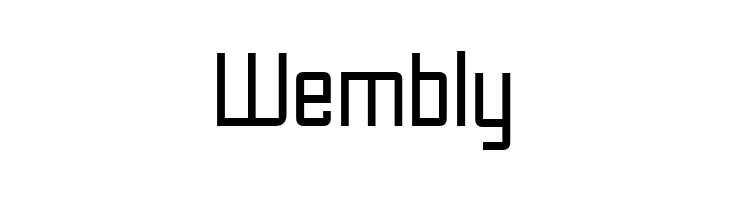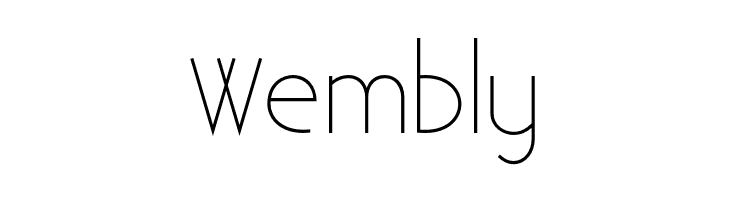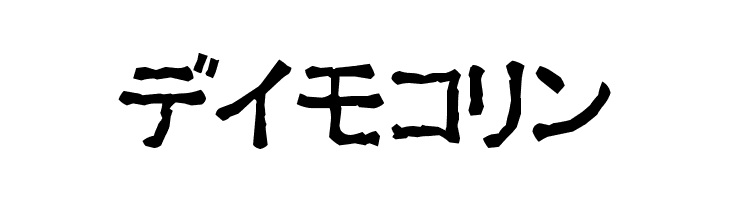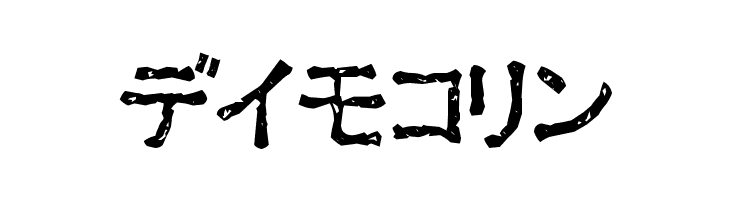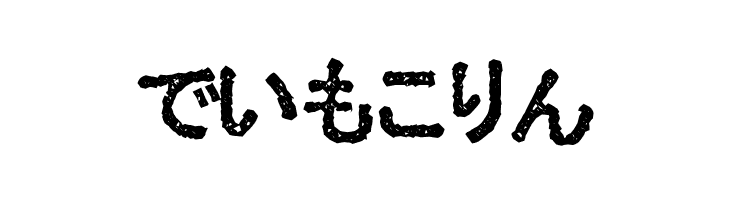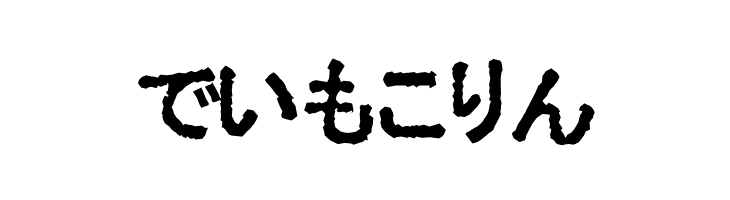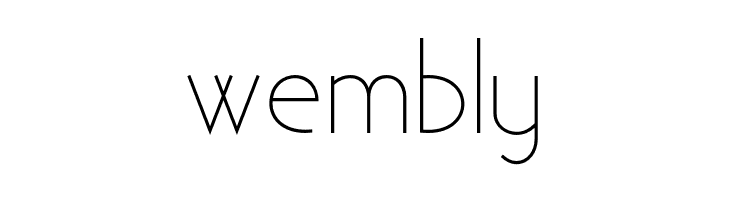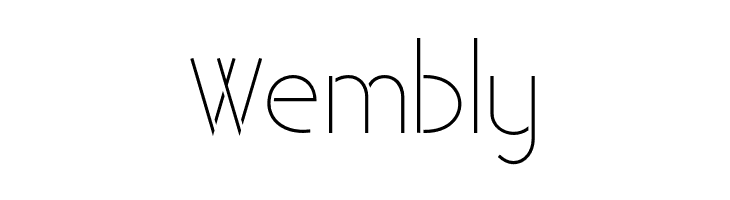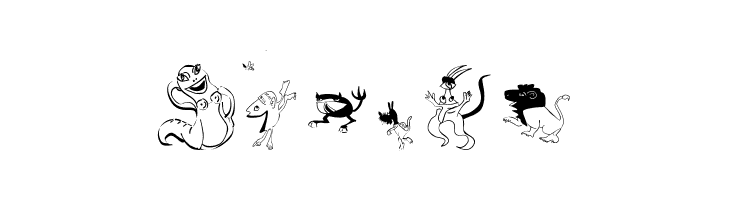
Illustrative, ethnographic font with cultural motifs and figures.
A modern, geometric font with consistent stroke widths and a clean, structured appearance.
A decorative dingbat font with jester-themed illustrations.
A collection of silhouette illustrations depicting dynamic scenes and characters.
A bold, distressed font with a rugged, impactful style.
A distressed, textured font with a vintage, grunge style.
A bold, textured font with a hand-drawn, calligraphic style.
A distressed, grunge-style font with rough, uneven edges and a bold presence.
A bold, brush-like font with high contrast and a handcrafted appearance.
A collection of gothic silhouette images with religious motifs.
A sleek, modern font with thin, elongated characters and a minimalist design.
A modern, minimalist font with geometric shapes and uniform stroke width.
A clean, modern font with thin, uniform strokes and a minimalist design.
Decorative font with abstract eyeball motifs in circular forms.
Playful, hand-drawn faces form each character with unique eye expressions.
A decorative font with mythical creature silhouettes, perfect for fantasy-themed projects.
A bold, circular, and geometric decorative font with a modern flair.
Playful, hand-drawn font made of expressive cartoon faces.
Hand-drawn, abstract face and figure font with a playful, artistic style.
A display font composed of iconic building silhouettes as glyphs.
Whimsical hand-drawn fantasy creature illustrations.